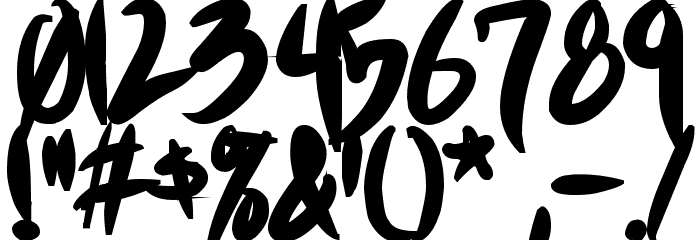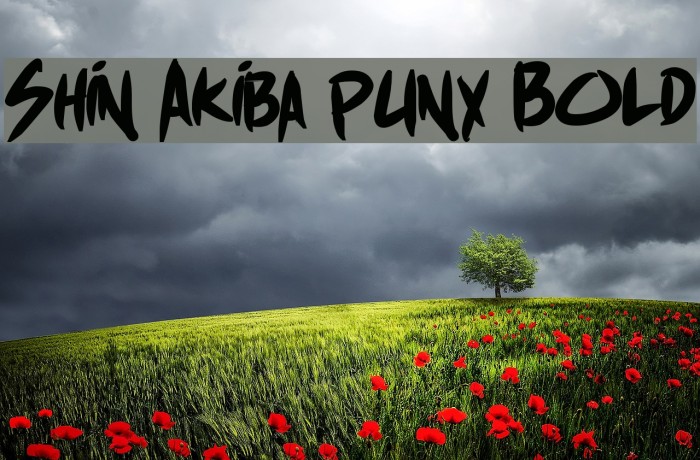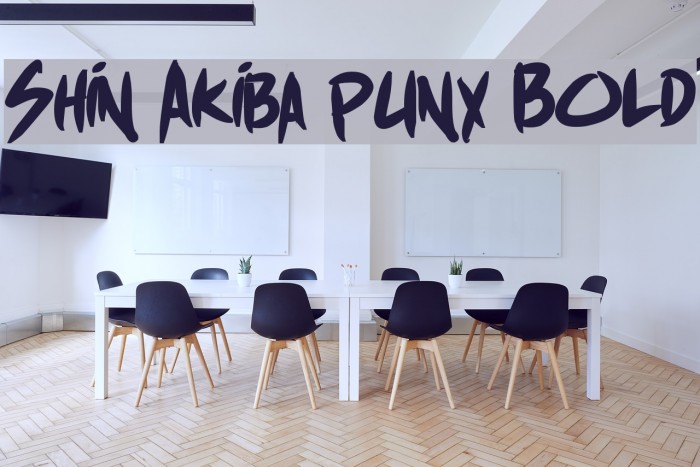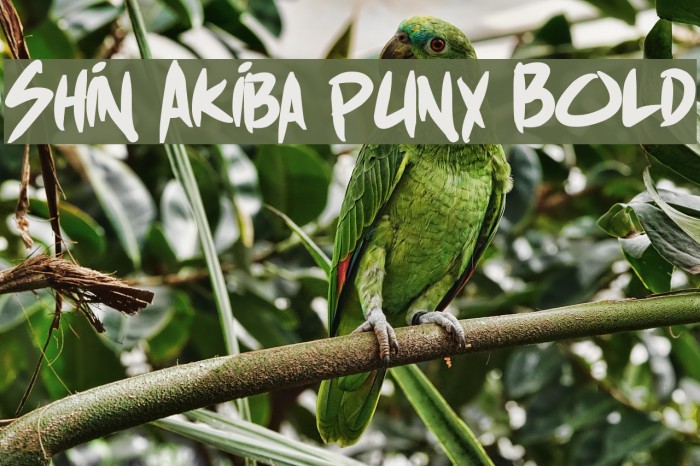
Shin Akiba punx Bold Font
This bold and expressive font features a dynamic, hand-drawn style that exudes energy and creativity. The characters are crafted with thick, bold strokes that give a sense of urgency and movement, reminiscent of graffiti or street art. The uppercase and lowercase letters maintain a consistent style, with sharp angles and a slightly irregular baseline that adds to the font's edgy appeal. Numbers and special characters are equally bold, ensuring a cohesive look across all text elements. This font is perfect for projects that require a strong, impactful visual presence.
A bold, hand-drawn font with an energetic, graffiti-inspired style.
- Proposed Projects: Ideal for posters, album covers, streetwear branding, and any project needing a bold, artistic touch.
- Overall Style: Modern, Urban